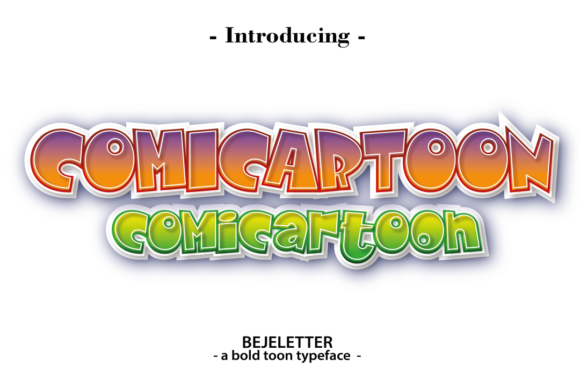
Welcome to a world where imagination thrives, where every letter dances with joy, and every word is a stroke of genius. We present to you Comicartoon, a font that will ignite your creativity and transport you to a realm of endless possibilities.
Comicartoon, a playful and cheerful display font, is not just a font; it's an adventure. Inspired by the golden age of cartoons, Comicartoon encapsulates the magic and wonder of those timeless classics. Its whimsical characters, reminiscent of beloved cartoon heroes, will bring a smile to your face and captivate your audience.
With Comicartoon, you're not just designing; you're creating an experience. Its enchanting style is perfect for children's books, game designs, playful branding, quirky social media posts, and any project that demands a touch of lightheartedness. Its versatility shines through in logos, posters, packaging, and even website designs, adding a unique charm that sets you apart.
Comicartoon is more than just a font; it's a gateway to a world of creativity. Its unique and captivating style will unleash your imagination, allowing you to create designs that are both visually stunning and emotionally engaging. Whether you're a seasoned designer or just starting out, Comicartoon is your perfect companion, ready to turn your ideas into masterpieces.
So, dive into the extraordinary world of Comicartoon, where every letter tells a story and every design becomes a captivating experience. Let your creativity soar, let your imagination run wild, and let Comicartoon guide you on an artistic journey like no other.